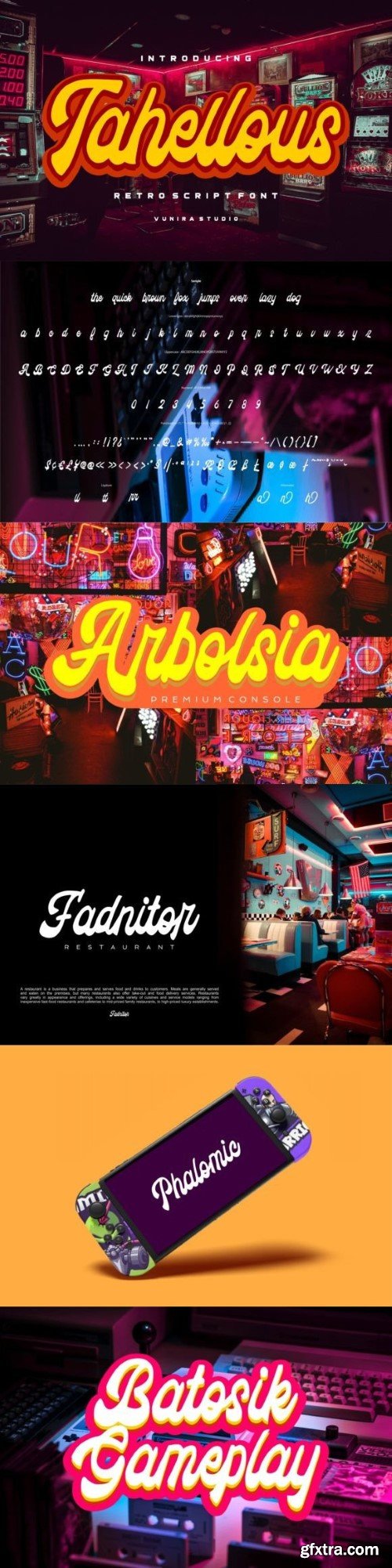
特洛尔斯字体
Tahellous – Retro Script is a cool and stylish font that brings back the vibe of the past. With its retro charm and script style, it adds a touch of nostalgia to your projects. Perfect for creating vintage-inspired designs with a modern twist. Spruce up your visuals and give them a classic feel with Tahellous – Retro Script.